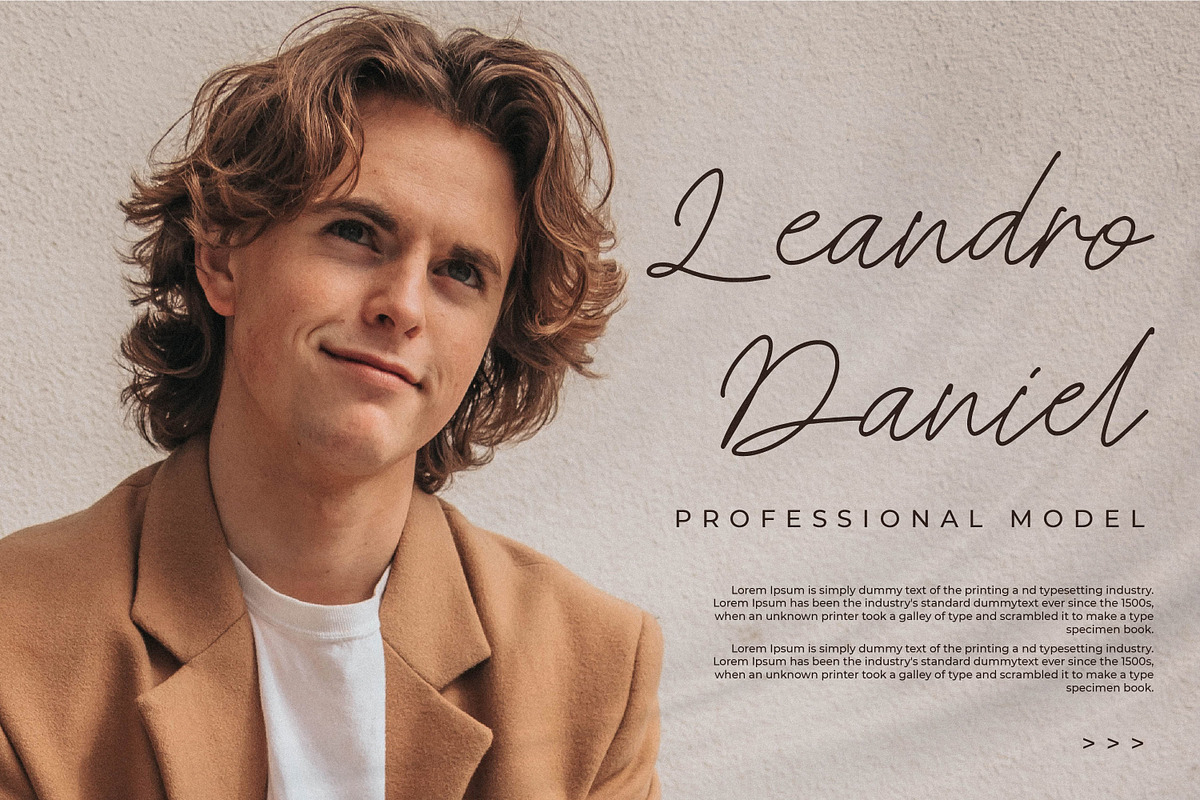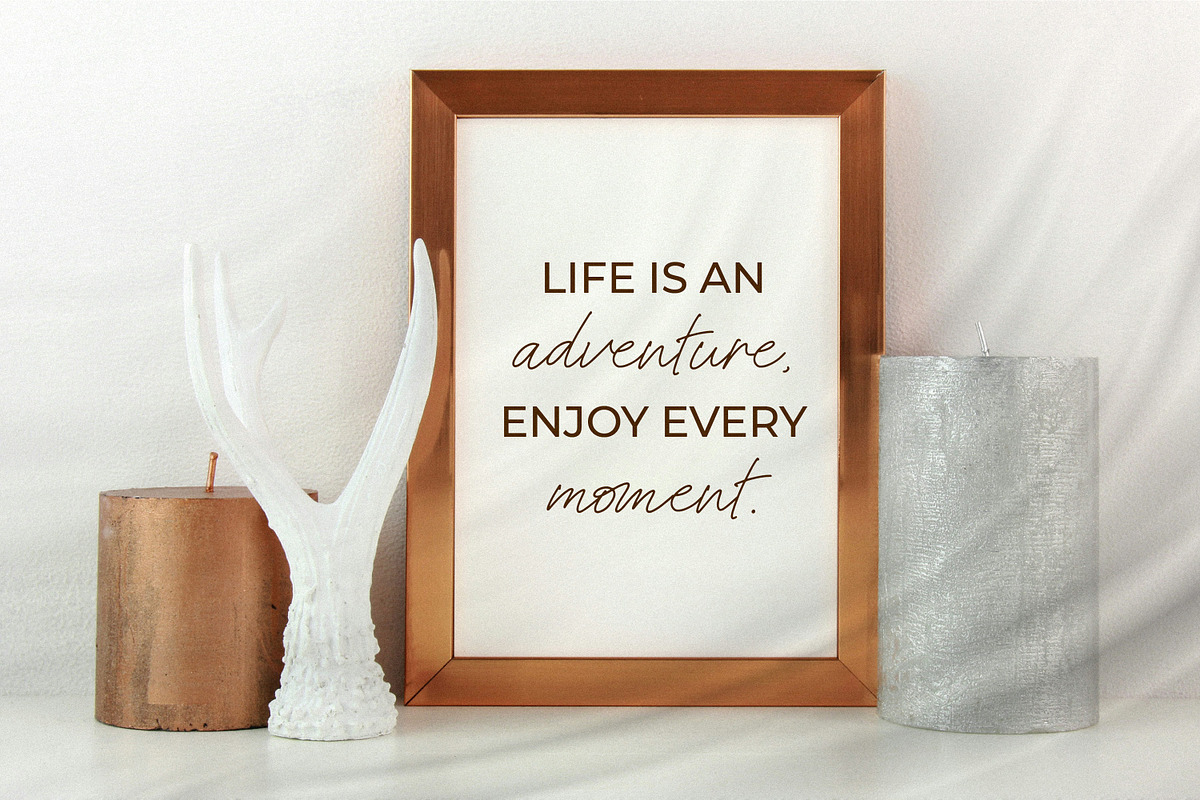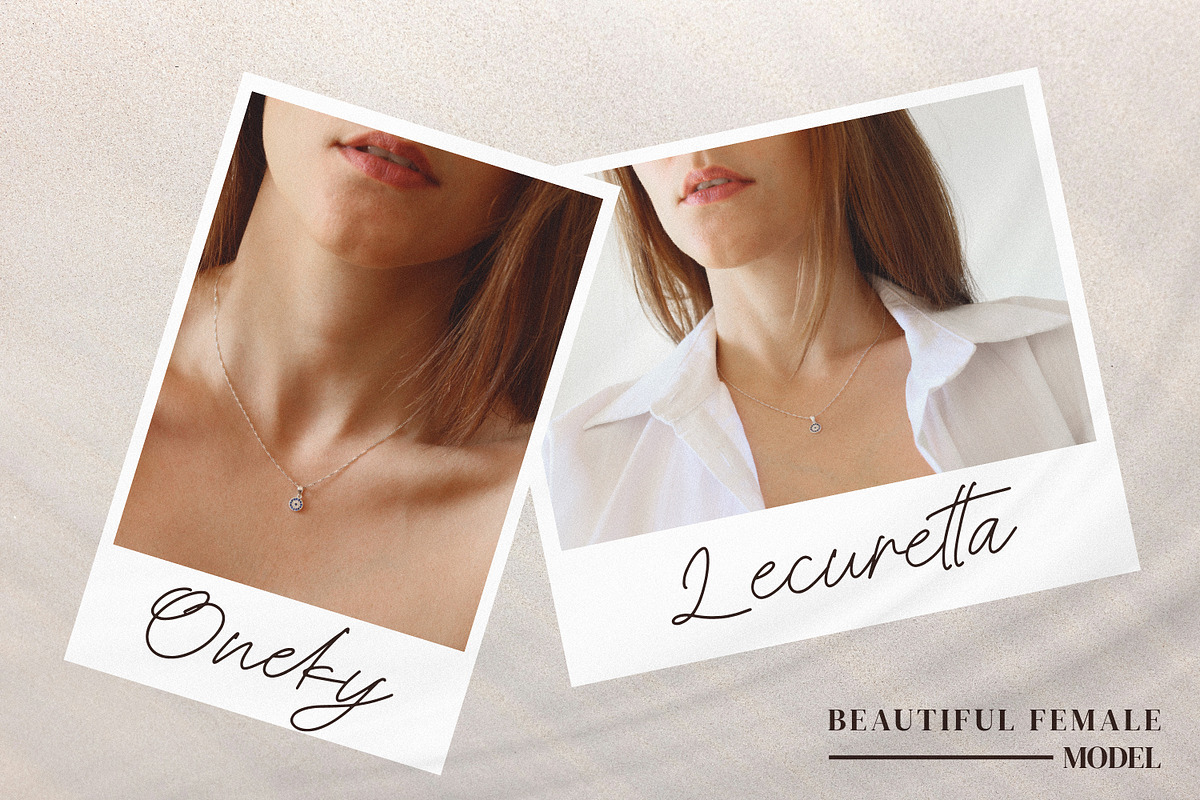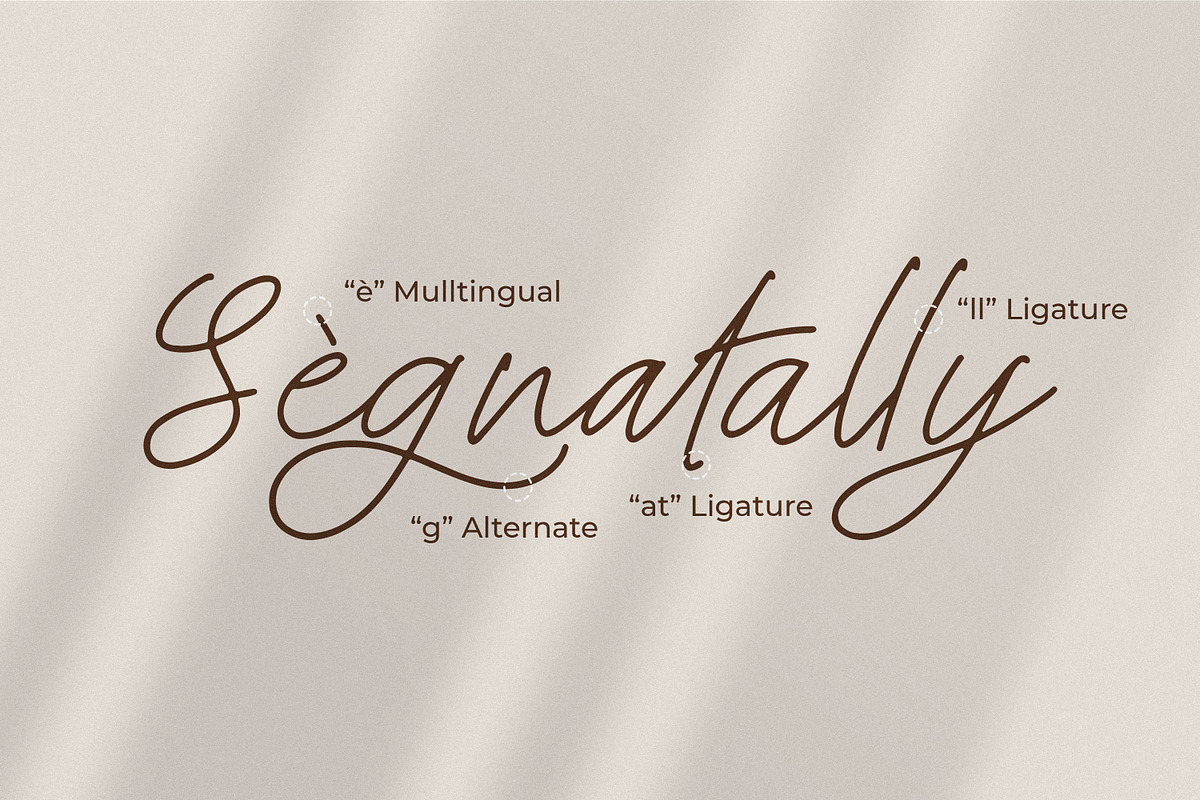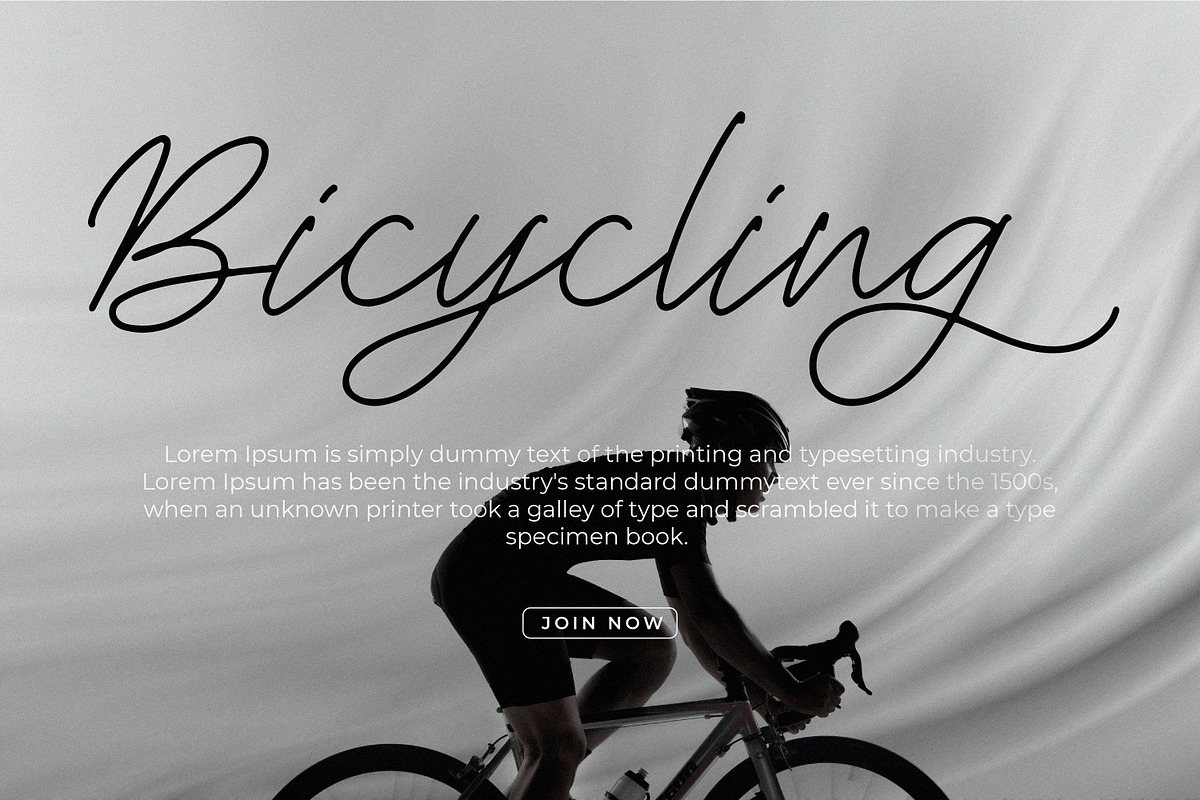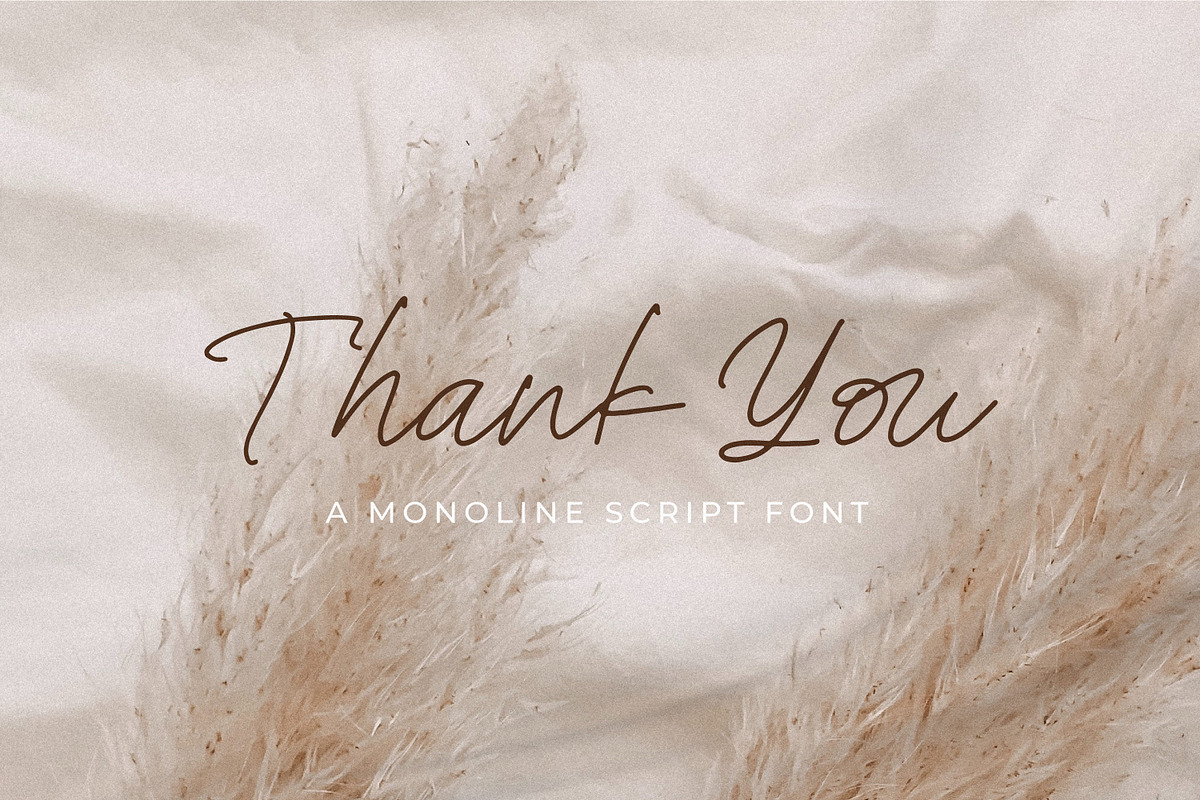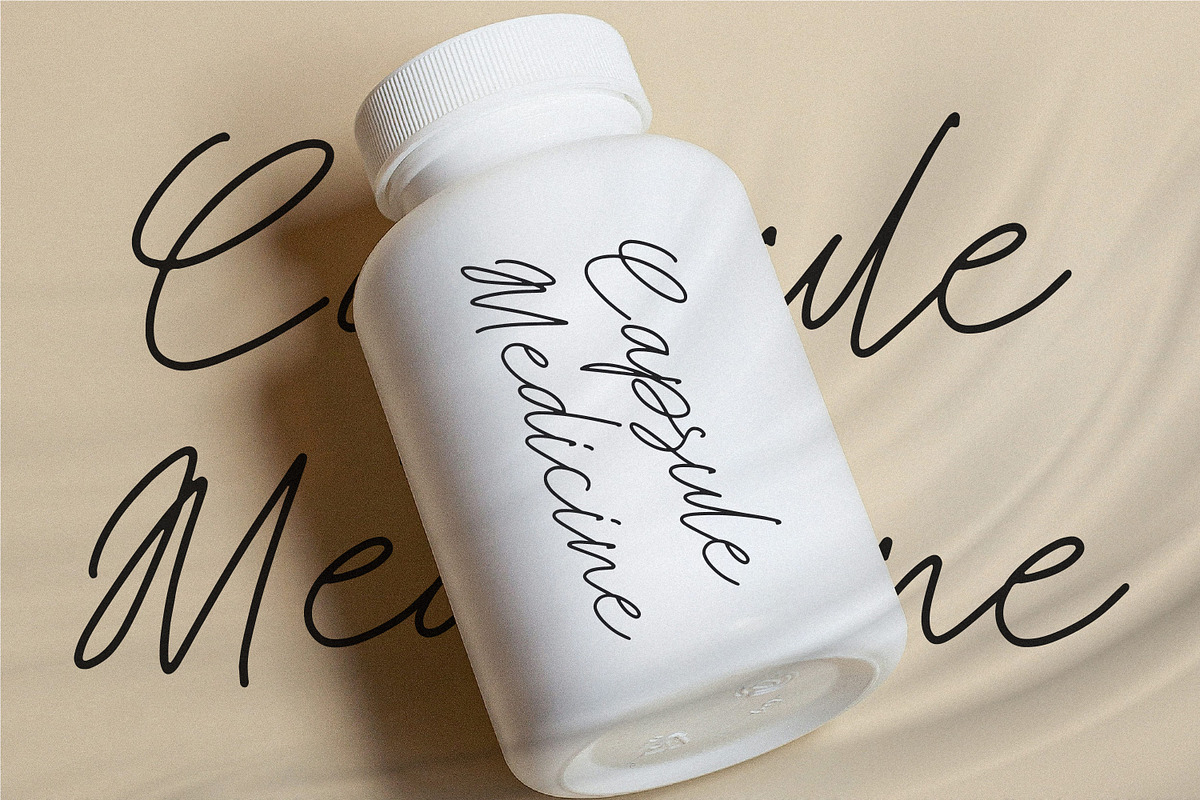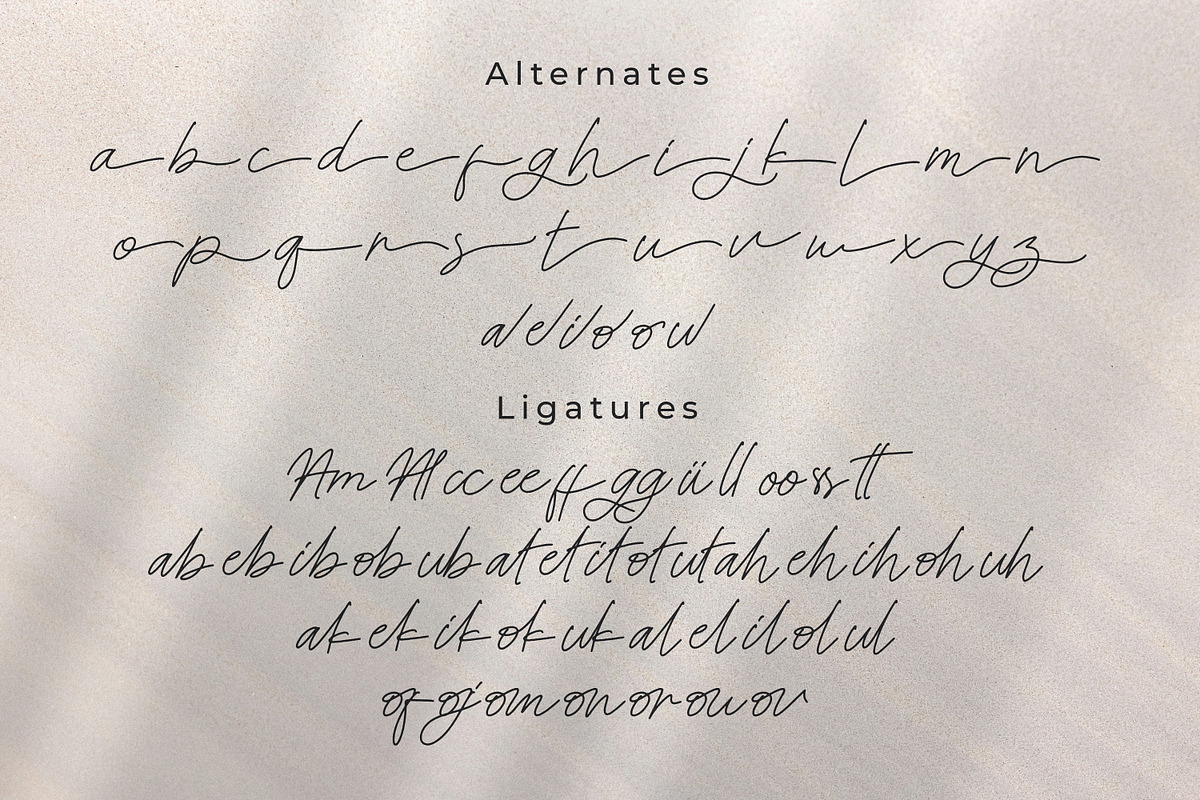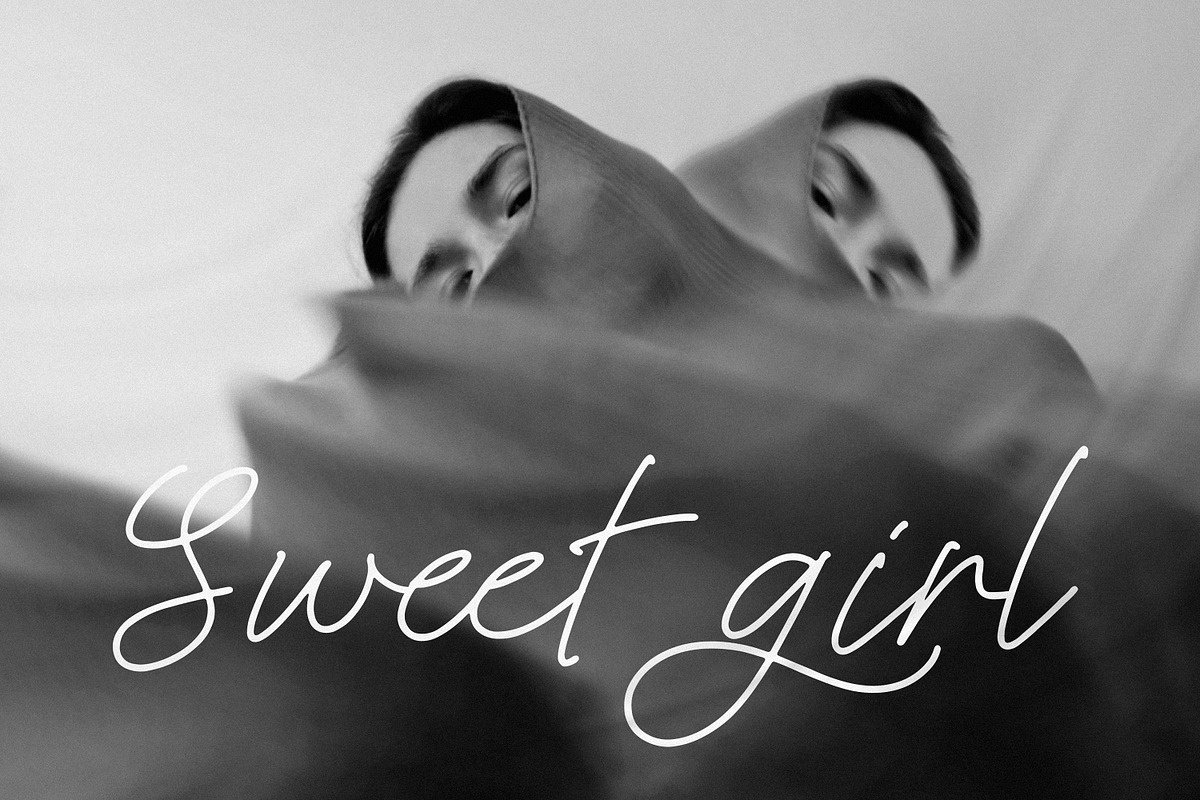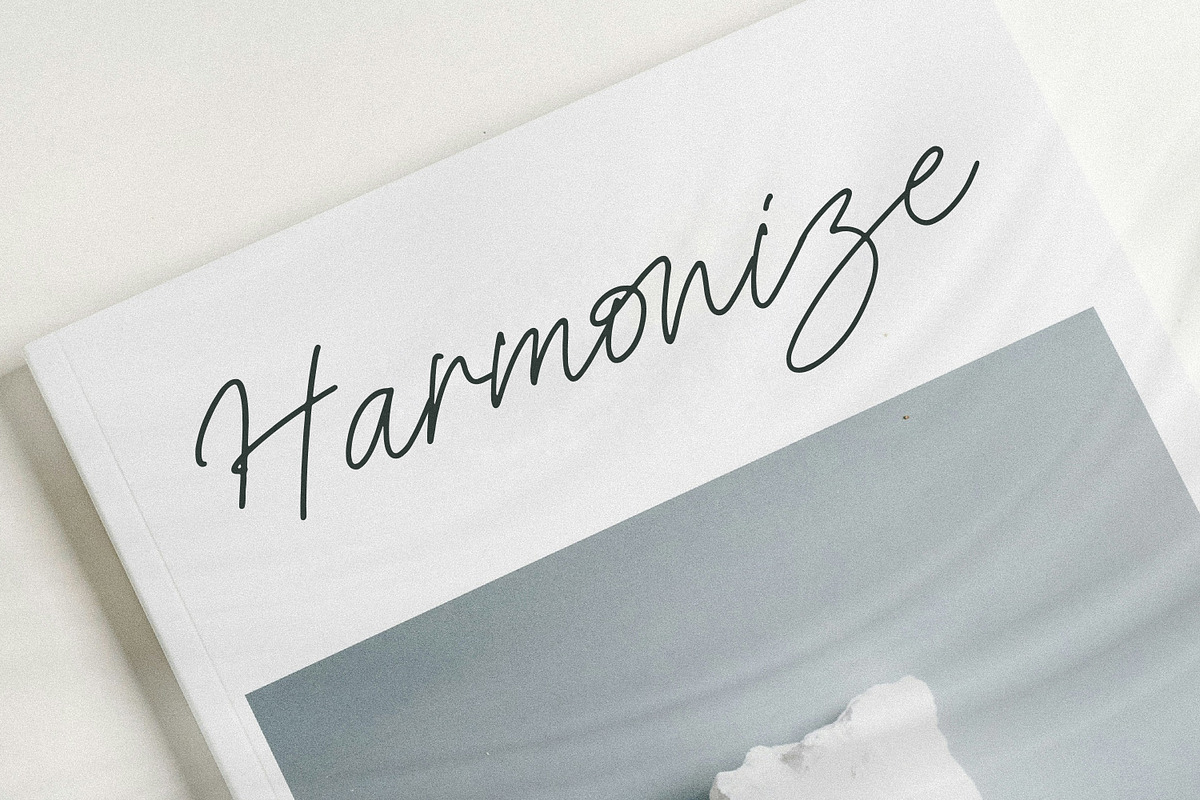
Steelbany
Steelbany - A Monoline Script Font, from Goresan Studio, suitable for any projects such as: logos, branding projects, homeware designs, product packaging, mugs, quotes, posters, shopping bags, t-shirts, book covers, name card, invitation cards, greeting cards, label, photography, watermark, special events, and all your other lovely projects that need a beautiful script taste.
- Alternate, Ligature and Swash
- Fonts include multilingual support.